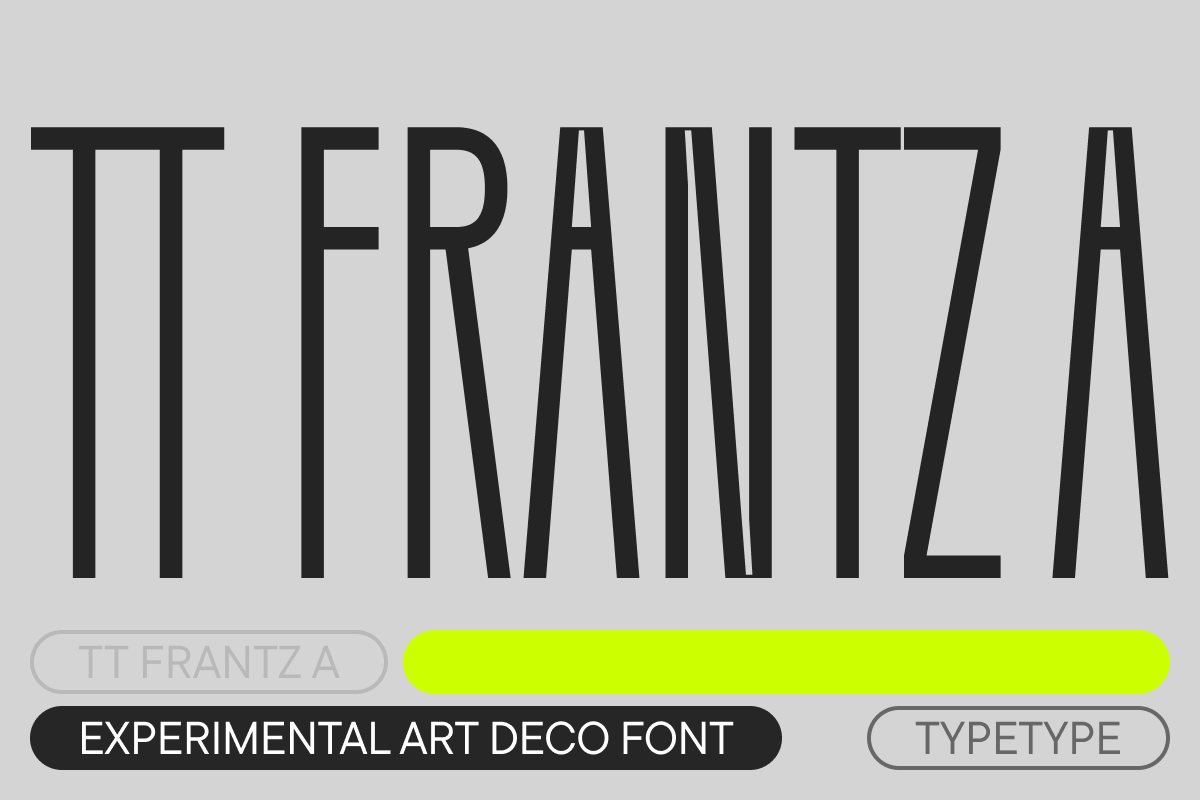
TT Frantz A
TT Frantz is an experimental variable font, distinguished by its slimness and lightness. In TT Frantz, you can find small references to the art deco aesthetics, which are expressed in significantly lowered or, conversely, heightened waist of the letters. In addition, depending on the position of the axis adjustment slider, the closedness of the aperture changes for some letters.